The Magic of Decorative Font
Streetmark preview 11
When it comes to typography, choosing the right font can make a huge difference in the overall aesthetic and message of a design. One particular category that stands out for its uniqueness and artistic flair is decorative fonts. These fonts are designed to be eye-catching, dynamic, and full of personality, making them ideal for branding, advertising, and other creative design projects. So now, we’ll explore decorative fonts—what they are, the different types, when to use them, and how to use them properly.
What are decorative fonts?
Decorative fonts, sometimes referred to as display fonts, are typefaces created primarily for decorative purposes rather than long-form readability. Unlike serif fonts or sans-serif fonts, which prioritize legibility, decorative fonts focus on artistic expression. These fonts often feature unique shapes, intricate details, and sometimes even illustrations within the letters.
Types of Decorative Fonts
Decorative fonts come in many styles, each with its own unique vibe:
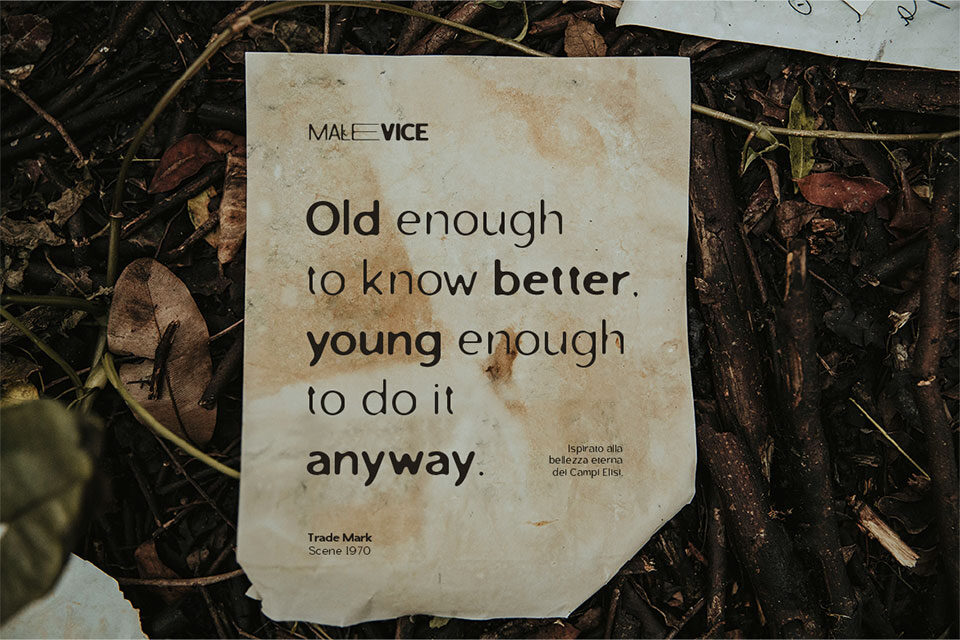
• Vintage & Retro Fonts: Inspired by old signage, posters, and advertisements from past eras, perfect for nostalgic designs.
• Handwritten & Script Fonts: Mimic natural handwriting, adding a personal and artistic touch.
• Gothic & Horror Fonts: Often used in spooky or medieval-themed designs, ideal for Halloween or dark fantasy projects.
• Graffiti & Street Art Fonts: Reflect urban and street culture, often featuring bold and rebellious strokes.
• Futuristic & Sci-Fi Fonts: Designed to evoke a modern or futuristic aesthetic, commonly used in tech-related designs.
• Layered Fonts: These fonts are designed to be used in multiple overlapping layers, allowing designers to create dynamic and colorful effects.
• Stencil Fonts: Feature gaps or breaks in the letterforms, often used in military or industrial-style designs.
• 3D Fonts: Have depth and shading, giving the text a three-dimensional appearance.
• Grunge & Distressed Fonts: Appear rough, eroded, or textured, creating a worn-out or edgy look.
• Cartoon & Playful Fonts: Designed for fun and engaging visuals, often used in children’s materials or informal branding.
When to use decorative font
Since decorative fonts are bold and visually distinctive, they are best used in situations where you want to make a strong impression. Common uses include:
• Logos & Branding: Many brands use decorative fonts to create a memorable and distinctive visual identity.
• Posters & Advertisements: These fonts help grab attention and set the tone for an event or campaign.
• Book Covers & Titles: Whether for a fantasy novel or a children’s book, decorative fonts add character to titles.
• Social Media Graphics: To stand out on crowded feeds, designers use decorative fonts to enhance engagement.
• Packaging Design: Decorative fonts are often used in product packaging to create an eye-catching and unique look.
Tips for using decorative fonts effectively
• Pair Wisely: Decorative fonts work best when paired with simpler, easy-to-read fonts like sans-serif or serif typefaces.
• Use Sparingly: Avoid using decorative fonts for body text. Instead, use them for headlines, logos, or short phrases.
• Consider Readability: Some decorative fonts can be highly stylized, so ensure they remain legible at various sizes.
• Match the Theme: Choose a decorative font that aligns with the tone and purpose of your design.
Decorative fonts can elevate your design projects by adding uniqueness and creativity. However, they should be used thoughtfully to maintain balance and clarity in your visuals. When used correctly, they can transform ordinary text into a stunning focal point that captures attention and communicates personality.
Are you ready to explore the world of decorative fonts? Start experimenting and let your creativity shine! Whether you’re designing for branding, advertising, or social media, the right decorative font can make all the difference.